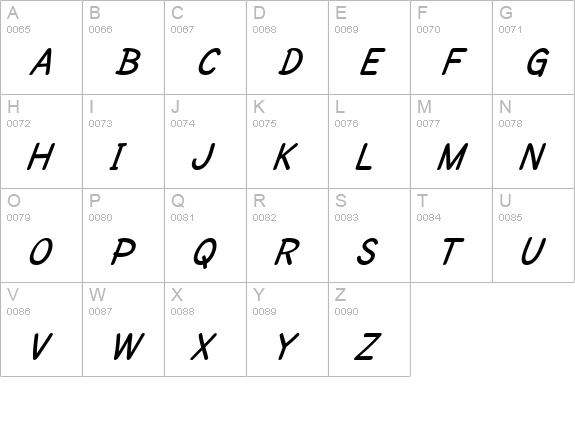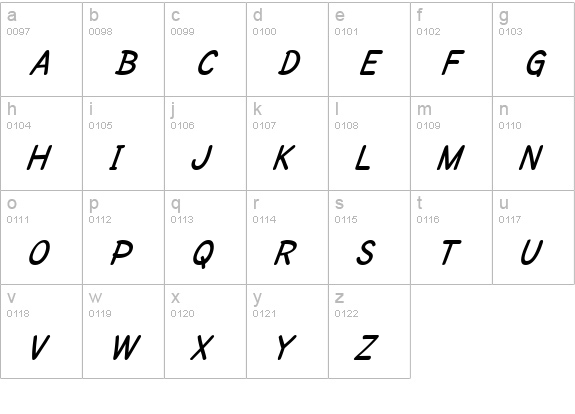
SF Cartoonist Hand SC Bold Italic Font Details
SF Cartoonist Hand SC Bold Italic is a strong, high-contrast, italic variant in the SF typeface family \xE2\x80\x94 well suited to headlines, attention-grabbing titles, and strong calls-to-action.
SF Cartoonist Hand SC Bold Italic is a playful and expressive font that brings a whimsical touch to any design project. With its bold and italicized characters, this font exudes a sense of energy and fun, making it perfect for creating eye-catching headlines, logos, and children's book illustrations. Designed with the needs of cartoonists and illustrators in mind, SF Cartoonist Hand SC Bold Italic strikes the perfect balance between readability and personality. Each letter is meticulously crafted, capturing the essence of hand-drawn lettering with its slightly imperfect lines and charming quirks. The bold and italic styles add even more dynamism to your designs, allowing you to emphasize certain words or phrases with flair. What makes SF Cartoonist Hand SC Bold Italic even more compelling is that it is available for free download at FontsMarket.com. Whether you're a professional designer looking to add a touch of playfulness to your work or a hobbyist looking to experiment with different fonts, this font is freely accessible to all. Simply visit FontsMarket.com, search for SF Cartoonist Hand SC Bold Italic, and start using it in your projects today. So why settle for ordinary, generic fonts when you can make your designs stand out with SF Cartoonist Hand SC Bold Italic? Download it for free and unleash your creativity!